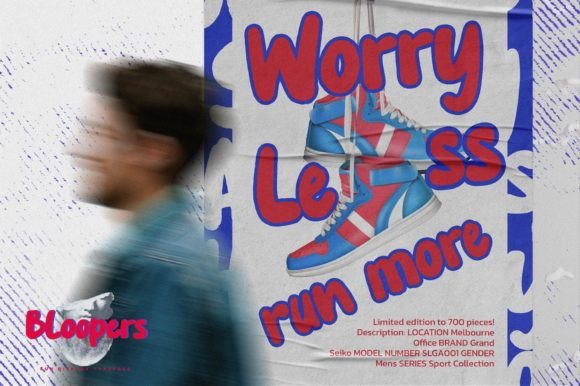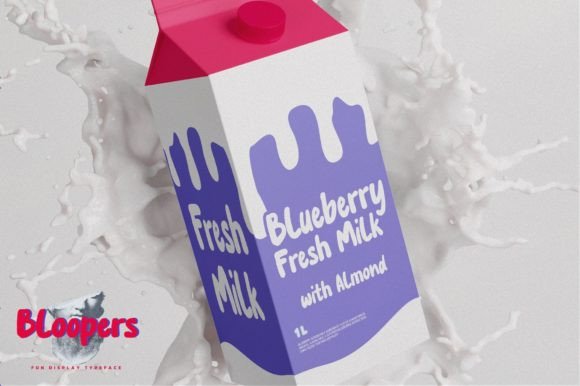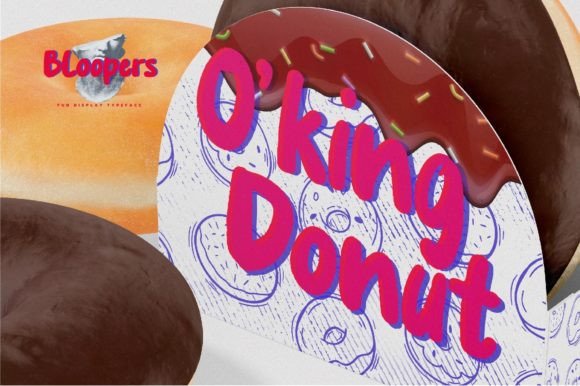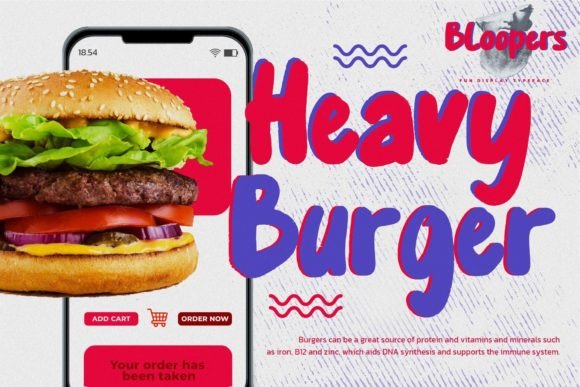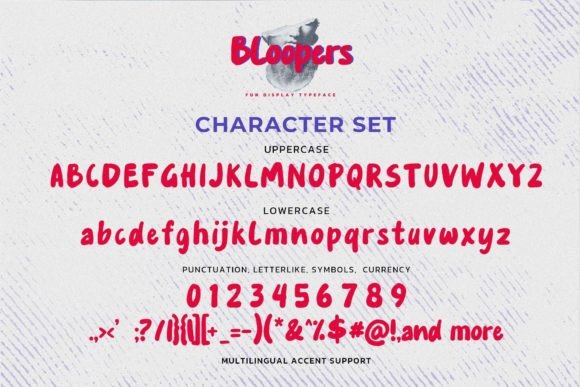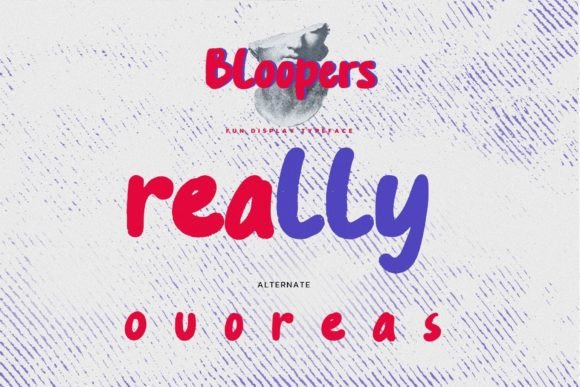
Bloopers Font: Elevate Your Designs with a Fun and Classy Typeface
Are you tired of using the same old fonts in your designs? Look no further than Bloopers Font, a fun and classy display typeface that’s perfect for adding a touch of personality to your creative projects. With its textured, natural style and clear, dramatic movement, Bloopers Font is sure to make your designs stand out from the crowd.
A Versatile Font for a Variety of Projects
Bloopers Font is incredibly versatile, making it suitable for a wide range of projects. Whether you’re designing a logo, creating a poster, or crafting a beautiful invitation, this font is sure to impress. Its charming, authentic, and relaxed characteristics give your text a natural look that’s perfect for:
- Logos: Add a touch of personality to your brand with a custom logo featuring Bloopers Font.
- Printed quotes: Make your quotes stand out with a beautiful, eye-catching font.
- Invitations: Create stunning invitations for special events, such as weddings, birthday parties, or baby showers.
- Cards: Design beautiful greeting cards for any occasion.
- Product packaging: Add a touch of class to your product packaging with Bloopers Font.
- Headers: Use Bloopers Font to create stunning headers for your website, blog, or social media channels.
- Logotype: Create a custom logotype that reflects your brand’s personality.
- Letterhead: Elevate your business correspondence with a professional-looking letterhead featuring Bloopers Font.
- Posters: Design eye-catching posters for special events, promotions, or announcements.
A Font that Adds a Touch of Handwriting Taste
Bloopers Font has a unique, handwriting-like quality that adds a touch of personality to your designs. Its textured, natural style gives your text a charming, authentic look that’s perfect for:
- Watermarks: Add a beautiful watermark to your photography or artwork with Bloopers Font.
- Special events: Create stunning designs for special events, such as weddings, birthday parties, or anniversaries.
PUA Encoded Characters for Easy Use
Multilingual Support for Global Designers
As a global designer, you need a font that supports multiple languages. Bloopers Font includes multilingual support, making it perfect for designers who work with clients from around the world.
Why Choose Bloopers Font?
So why choose Bloopers Font for your next design project? Here are just a few reasons:
- Unique and eye-catching design: Bloopers Font has a unique, textured style that’s sure to make your designs stand out.
- Versatile: This font is suitable for a wide range of projects, from logos to posters.
- Multilingual support: Bloopers Font includes multilingual support, making it perfect for global designers.
- Charming and authentic: This font has a charming, authentic look that’s perfect for adding a touch of personality to your designs.